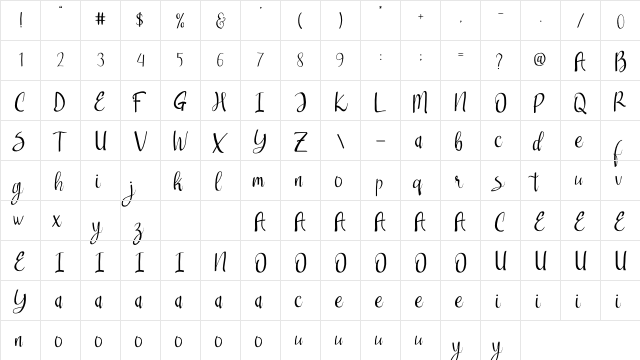
Optimus Light Regular
| Designer | Mizan Studio |
Design Context for Optimus Light Typeface
Optimus Light is a composed and adaptable typeface that performs quietly and consistently across a wide range of design contexts. Its slender proportions lend an understated elegance to any composition.
Pro Tip: Use Optimus Light in both headline and body roles to test its range before committing to a single application.